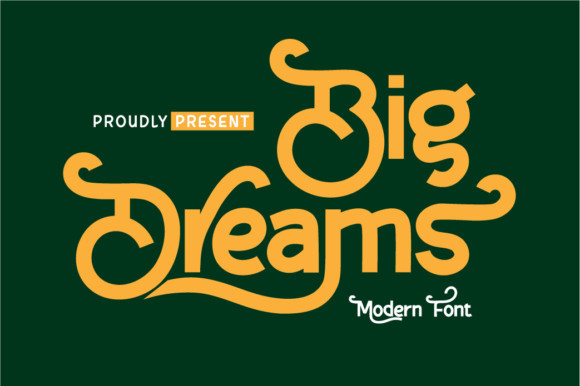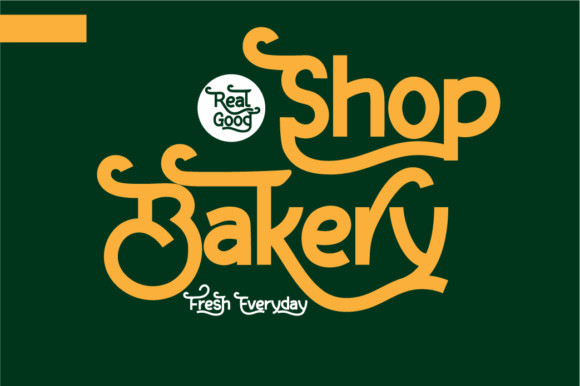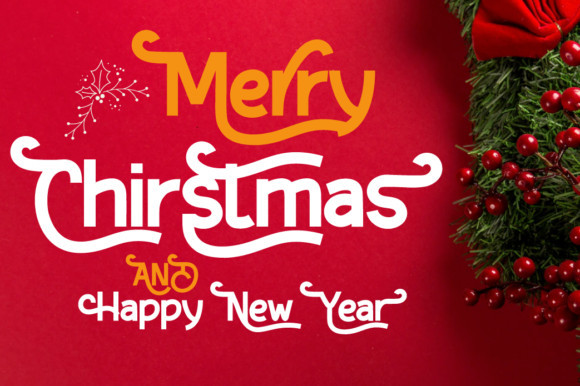
Big Dreams Font
Big Dreams is an elegant and unique sans serif font. This original look will appeal to a wide range of crafty ideas, from letterheads and titles, to stationery.